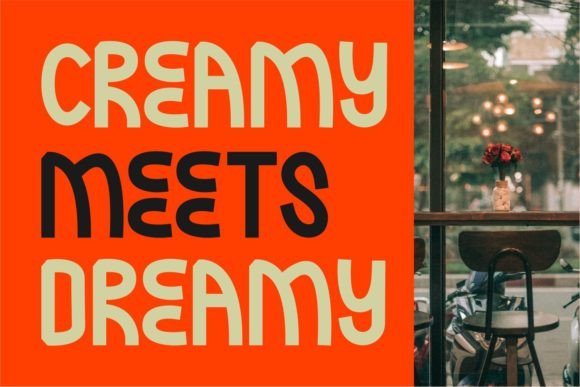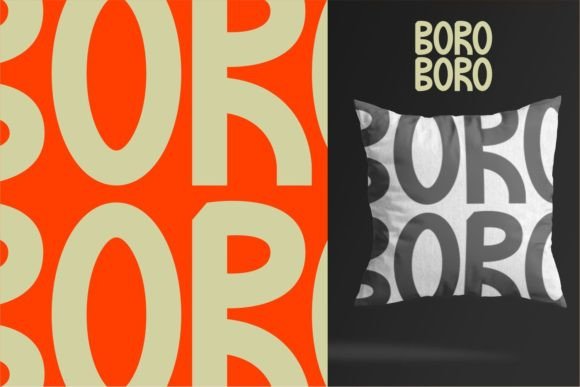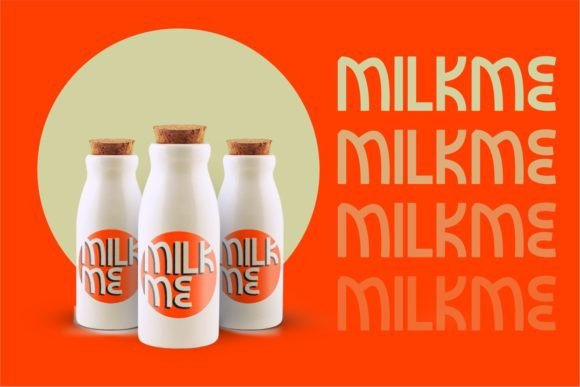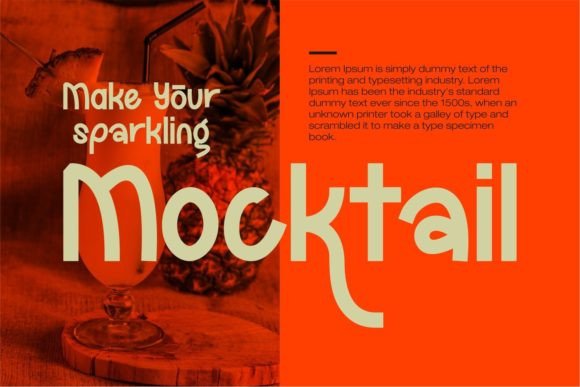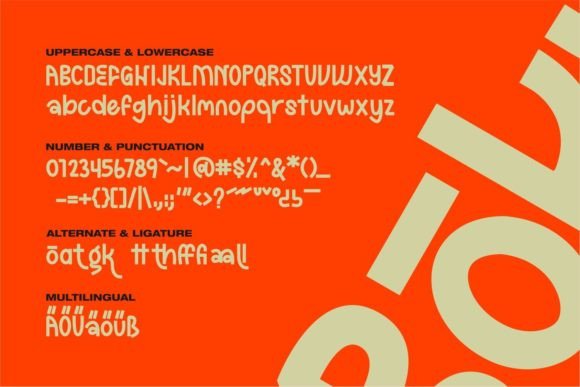
Enter Boku Font, a stylish and modern display font designed to add a touch of elegance to any design project. With its charming characters and versatility, Boku Font is the perfect choice for invitations, greeting cards, branding materials, and more. Whether you’re a seasoned designer or just starting out, Boku Font is a valuable addition to your toolkit, offering a unique and eye-catching look that’s sure to leave a lasting impression.
Boku Font Key Features
- Font Family: Boku Font is a unique, modern, and elegant font family designed specifically for digital and print media.
- Character Count: The font family includes a wide range of characters, including Latin, Cyrillic, and Greek alphabets, as well as various punctuation marks and symbols.
- Unique Characteristics: Boku Font features a unique blend of geometric and organic shapes, resulting in a distinctive and recognizable visual identity.
Boku Font Review
Overall, I’d say Boku Font is a solid choice for designers looking for a modern, minimalist sans-serif typeface. ✨ It’s perfect for digital products, logos, and branding materials where a clean and simple aesthetic is desired.
- ✨ Legibility: Boku Font is incredibly easy to read, even at small font sizes.
- ✨ Flexibility: It’s available in multiple weights and styles, making it suitable for various design applications.
- ✨ Scalability: Boku Font looks great on both screens and printed materials.
- ⚠️ Limited Expressiveness: While Boku Font is great for simple designs, it may not be the best choice for complex or creative typography projects.
- ⚠️ Lack of Unique Personality: Compared to other sans-serif fonts, Boku Font may not have a distinctive personality or character.
Overall, I think Boku Font is a reliable choice for designers who value simplicity and legibility. While it may not be the most exciting or expressive font, it’s a solid addition to any design toolkit.
Tips for Getting the Most Out of Boku Font
Here are some tips to help you get the most out of Boku Font:
- Experiment with different font sizes and styles to achieve the desired effect.
- Combine Boku Font with other fonts to create a unique and visually appealing design.
- Use Boku Font in conjunction with bold and italic styles to add emphasis and hierarchy to your text.
Boku Font is commonly used for:
- Japanese-inspired designs and branding.
- Modern and minimalist designs.